Free Tattoo Fonts: Finding Perfect Typography for Body Art
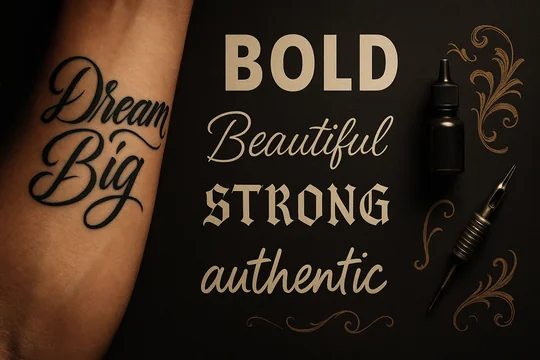
Whether it's a meaningful quote wrapped around your wrist, your child's name across your chest, or a powerful word that defines your journey, the right font doesn't just display your message "“ it amplifies your story, whispers your personality, and ensures your ink speaks the language of your heart.
Understanding Tattoo Typography: More Than Just Pretty Letters
When we talk about tattoo fonts, we're diving into a world where art meets permanence. Unlike choosing fonts for a website or poster, selecting typography for body art requires careful consideration of how letters will age, how they'll look at different sizes, and how they'll complement the natural curves of your body.
The Psychology Behind Font Choice
Every font family carries its own emotional weight. Script fonts whisper elegance and femininity, while bold sans-serif typefaces shout strength and modernity. Gothic lettering speaks of mystery and tradition, and handwritten styles feel personal and intimate. Understanding these psychological connections helps you choose fonts that truly represent who you are.
Key Considerations for Tattoo Fonts
Before diving into our extensive collection of free tattoo fonts, let's explore what makes typography work well for body art:
Readability Over Time: Your skin changes as you age. Fonts with thin lines or intricate details might not hold up as well as bolder, simpler designs. Consider how your chosen font will look in 10, 20, or 30 years.
Size and Placement: Small, delicate fonts work beautifully for finger tattoos or behind-the-ear placements, while larger, bolder fonts suit chest pieces or back tattoos. The placement dictates the font choice, not the other way around.
Body Contours: Your body isn't flat like a piece of paper. Good tattoo fonts flow with your natural curves rather than fighting against them. Consider how letters will bend around muscles, bones, and joints.
Artistic Harmony: If you're adding text to an existing tattoo or planning a larger piece, your font choice should complement other design elements rather than compete with them.
Top Categories of Free Tattoo Fonts
Script and Cursive Fonts
Script fonts remain the most popular choice for tattoo typography, and for good reason. They offer elegance, flow, and a timeless appeal that works beautifully for quotes, names, and meaningful phrases.
Best Free Script Options:
- Allura - A flowing script that works perfectly for longer quotes
- Dancing Script - Casual and friendly, ideal for personal mantras
- Great Vibes - Elegant and sophisticated, perfect for formal quotes
- Pacifico - Relaxed and approachable, great for beach-themed pieces
- Satisfy - Handwritten feel, excellent for personal messages
These script fonts offer varying levels of formality and flow. Allura works beautifully for wedding dates or romantic quotes, while Pacifico brings a laid-back California vibe to surf-related tattoos.
Bold and Sans-Serif Fonts
For those seeking modern, clean lines and maximum readability, sans-serif fonts deliver powerful impact. These fonts work exceptionally well for single words, short phrases, or geometric tattoo designs.
Top Bold Font Choices:
- Oswald - Strong and condensed, perfect for vertical text
- Bebas Neue - Ultra-bold and commanding attention
- Anton - Compressed and powerful, ideal for impactful words
- Fjalla One - Clean and readable, works at any size
- Russo One - Rounded edges with serious presence
Bold fonts excel in areas where you want maximum impact with minimal space. They're particularly effective for motivational words, coordinates, or geometric designs where the text becomes part of the overall artistic composition.
Gothic and Old English Fonts
Gothic typography brings historical weight and dramatic flair to tattoo designs. These fonts work particularly well for religious text, traditional imagery, or when you want to evoke a sense of timeless gravitas.
Classic Gothic Options:
- UnifrakturMaguntia - Traditional German blackletter style
- Kingthings Calligraphica - Medieval manuscript inspiration
- Morris Roman - Arts and crafts movement influence
- Cloister Black - Classic Old English newspaper style
- Linotext - Modern take on traditional gothic forms
Gothic fonts require careful consideration of size and placement. They work beautifully for larger pieces but can become illegible when scaled down too small. Consider your tattoo artist's experience with detailed line work when choosing these intricate styles.
Handwritten and Brush Fonts
Nothing feels more personal than handwritten-style fonts. These typefaces bring intimacy and authenticity to tattoo designs, making them perfect for personal mantras, loved ones' names, or meaningful quotes.
Authentic Handwritten Styles:
- Kalam - Natural handwriting with personality
The world of free tattoo fonts offers endless possibilities for creating meaningful, beautiful, and lasting typographic art. Whether you're planning your first text tattoo or adding to an existing collection, the perfect font is out there waiting to give voice to your vision. Take your time, do your research, and choose the typography that will make your mark on the world "“ and on your skin "“ truly unforgettable.